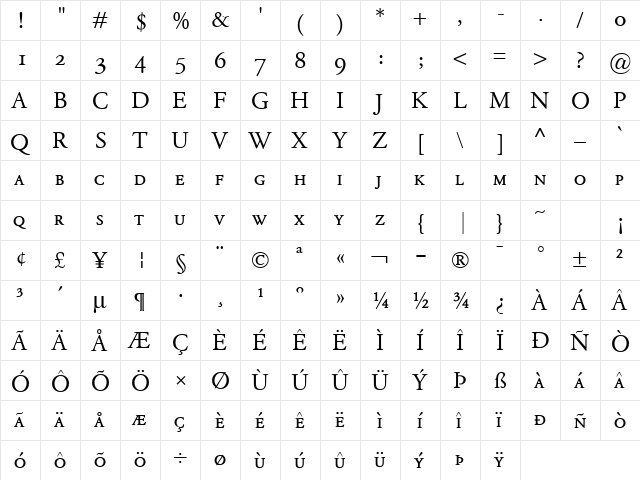
Garamond Classico SC Regular
Design Context for Garamond Classico SC Typeface
Garamond Classico SC wears its vintage influences proudly, with letterforms that recall mid-century signage, classic packaging, and nostalgia-driven design.
Font Pairing: Combine Garamond Classico SC with a simple slab or neutral sans — period-accurate companions reinforce the vintage feel without competing for attention.
Pro Tip: Use Garamond Classico SC for headlines and pull quotes rather than body copy — its personality is best appreciated in short, focused bursts.